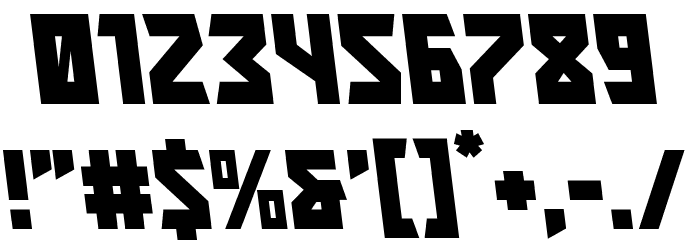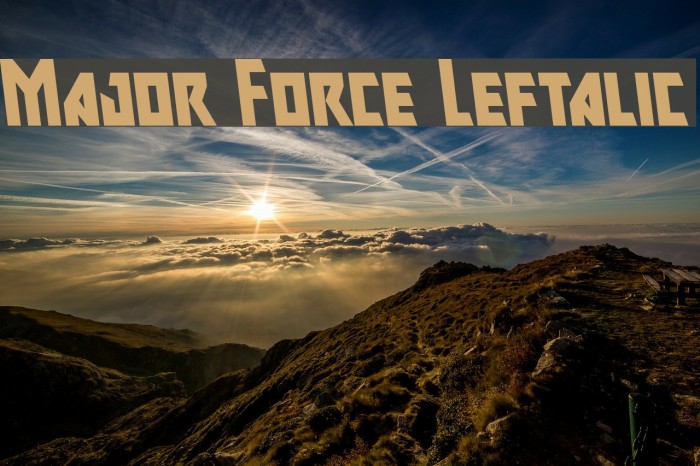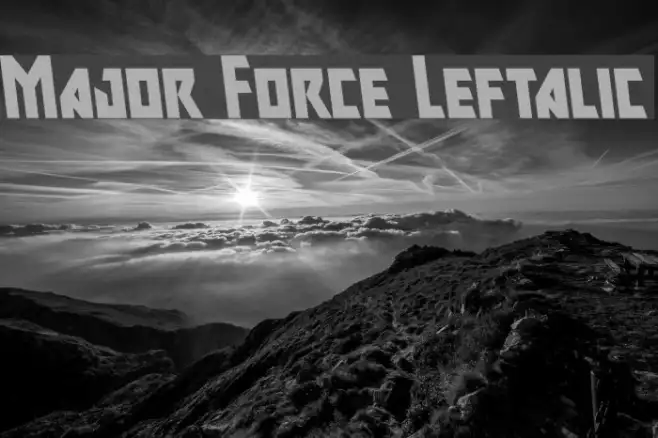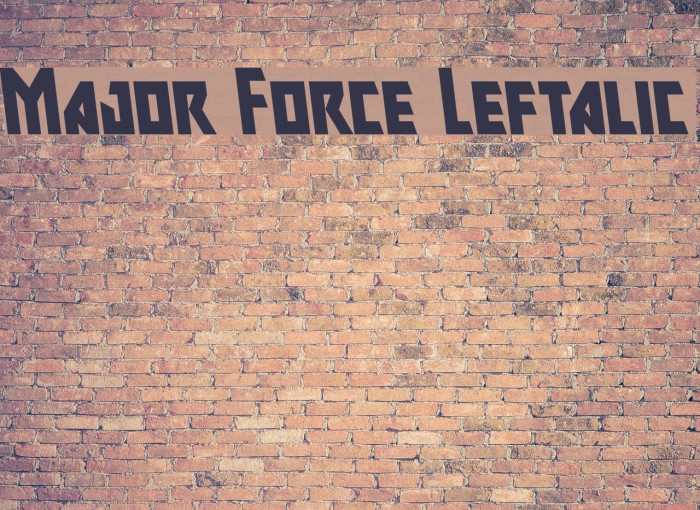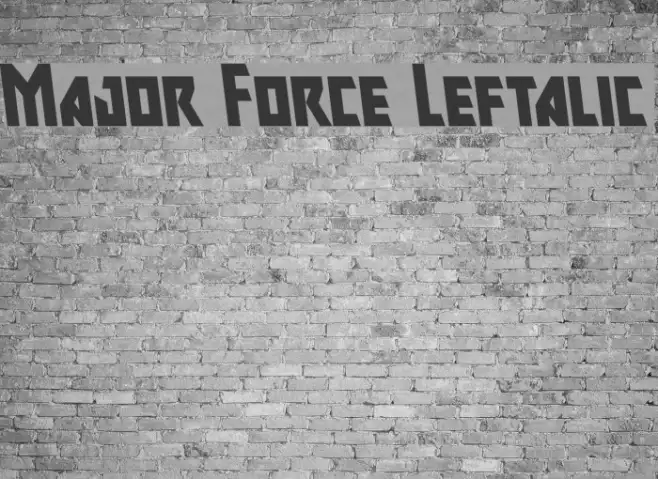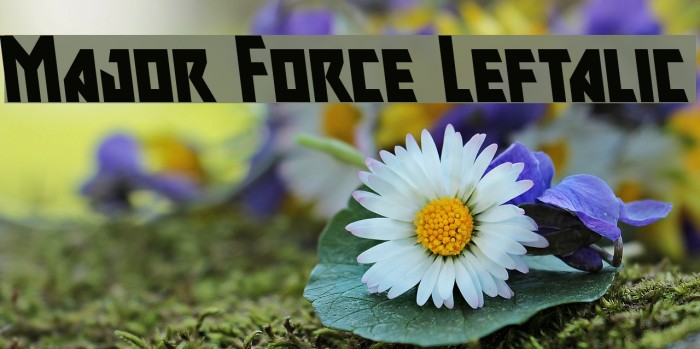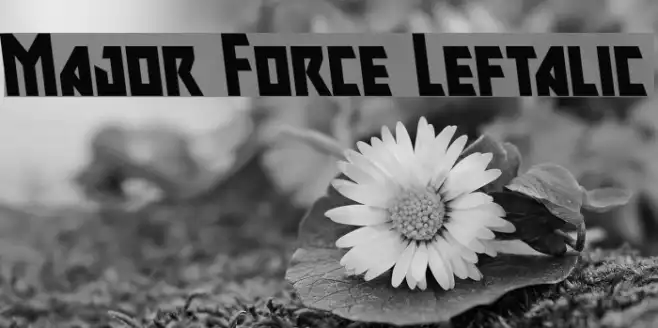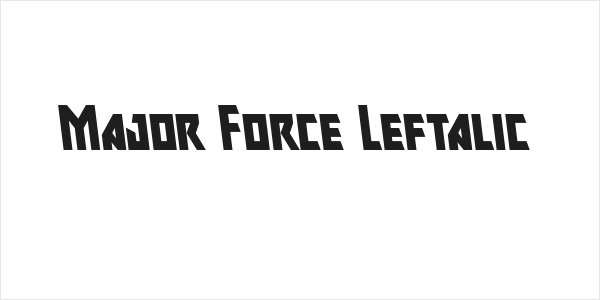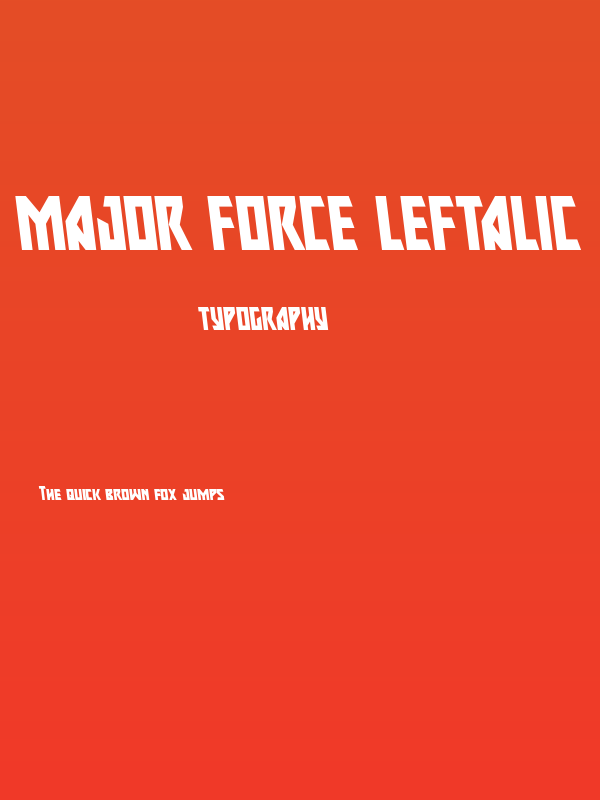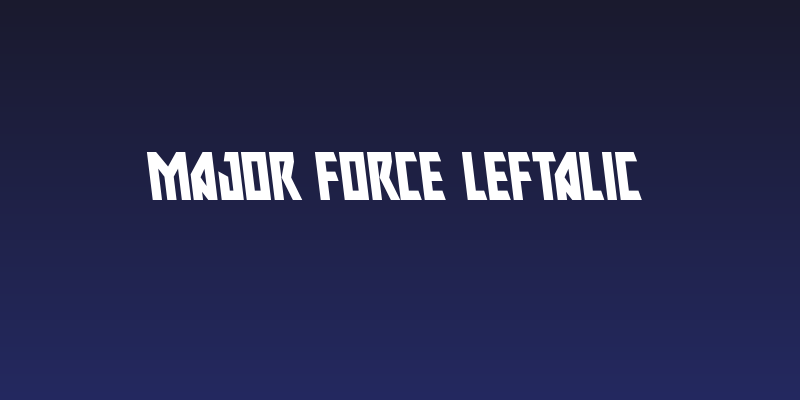
Major Force Leftalic Font
Major Force Leftalic Description
This font features a bold and angular design, characterized by its sharp, geometric shapes and strong presence. The letters are heavily stylized with a distinct slant to the left, giving it a dynamic and forceful appearance. The uppercase and lowercase letters maintain a consistent style, with thick strokes and minimal contrast, creating a uniform and cohesive look. The numbers and special characters follow the same angular and bold design, ensuring consistency across all glyphs. This font's unique style makes it stand out, ideal for projects that require a strong visual impact.
| Proposed Projects | Ideal for posters, logos, video game titles, and any project requiring a bold, dynamic aesthetic. |